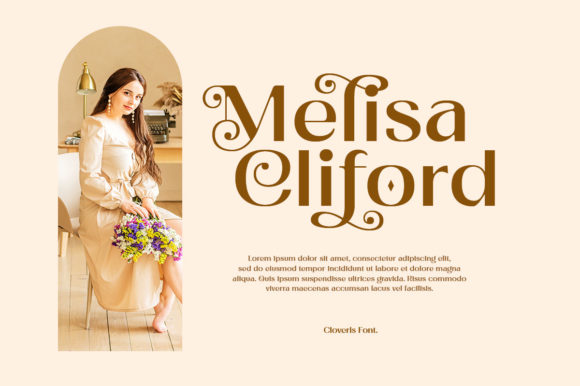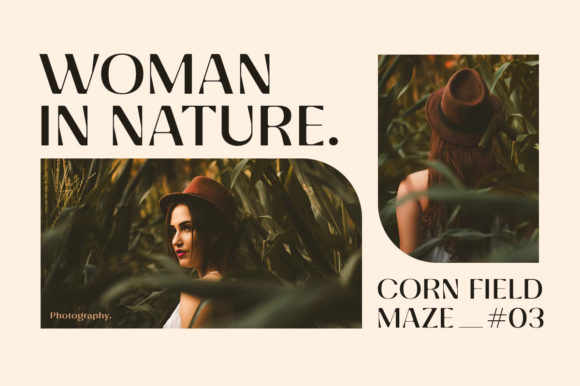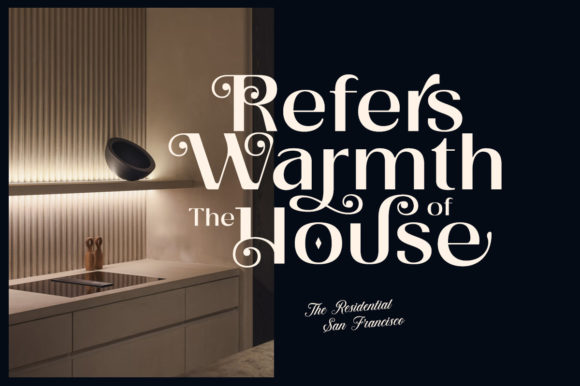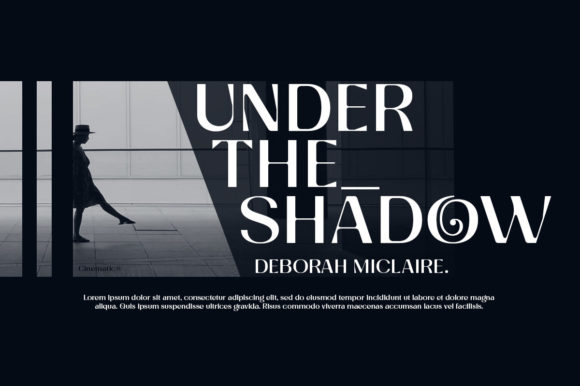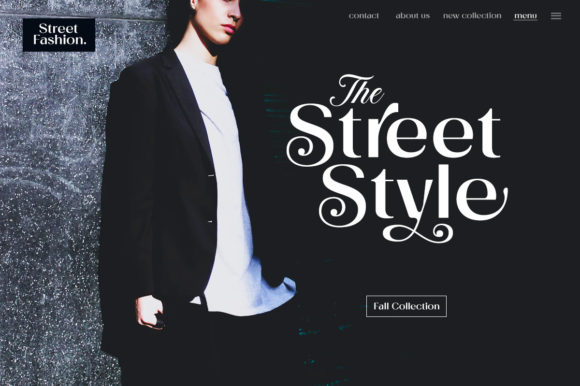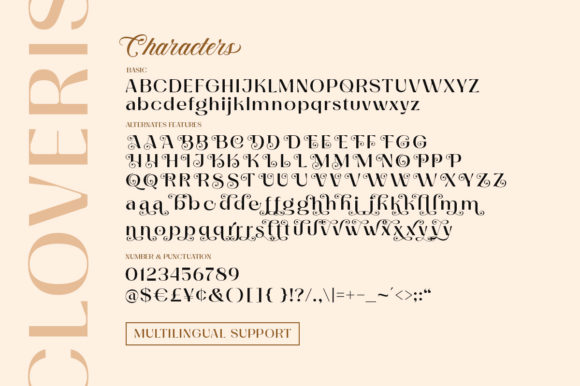
Introduction to Cloveris Font
Cloveris is a sophisticated sans serif with unique swirls and swashes.
Its unique letterforms make it stand out It is very suitable for headlines and titles.
Key Features of Cloveris Font
Why Choose Cloveris Font?